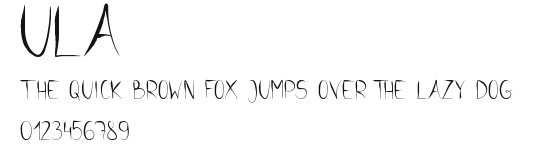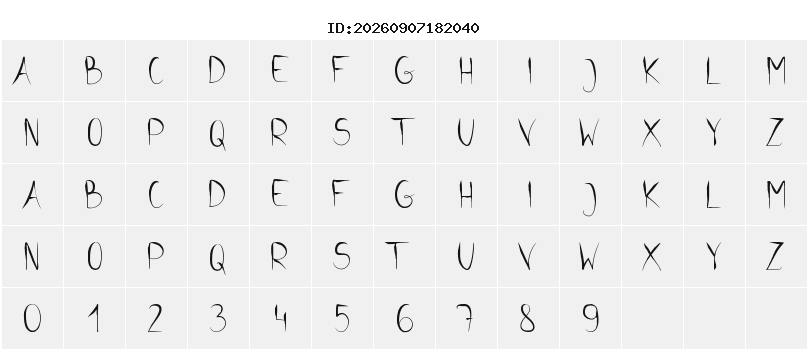
• Font Name: Ula
• Full Font Name: Ula
• Designer: Bloomart
About Ula.ttf
Ula.ttf is a modern, elegant sans-serif font designed for ultimate readability and visual harmony. Perfect for branding, headlines, web design, and print materials.